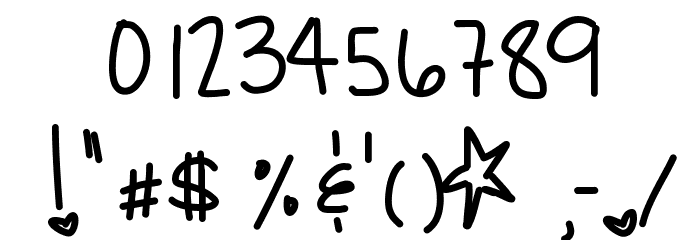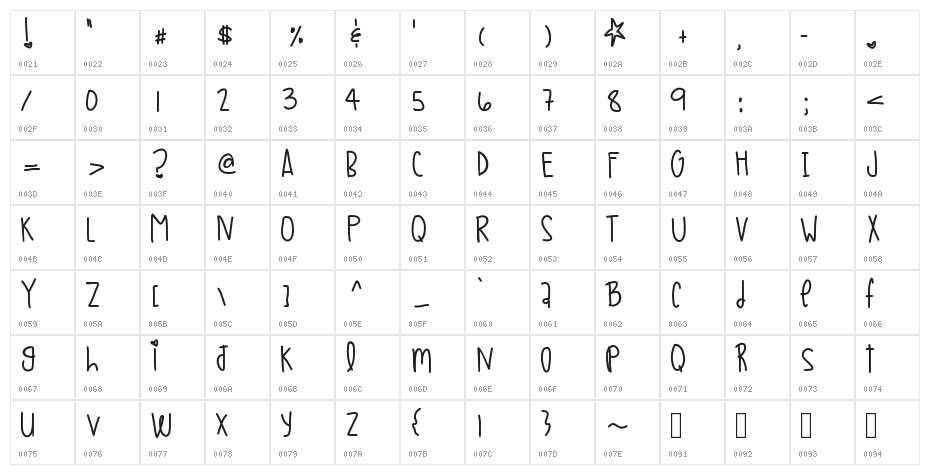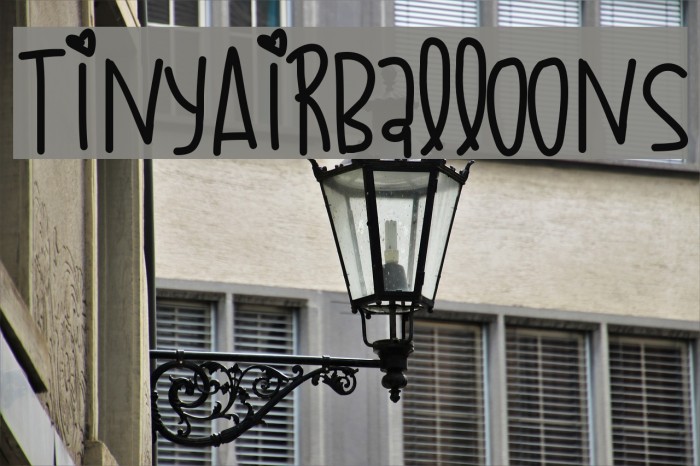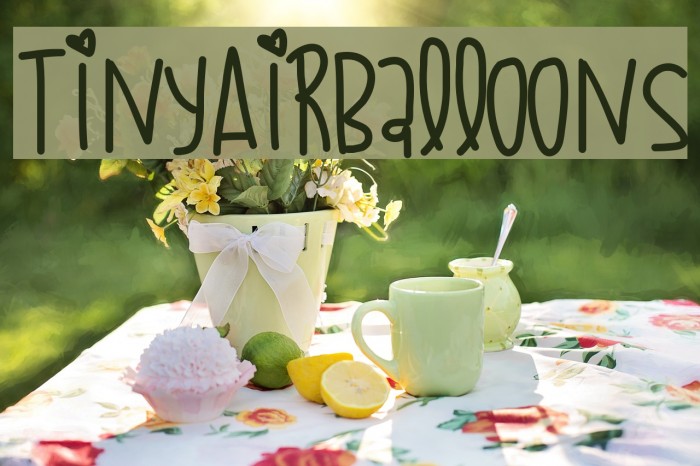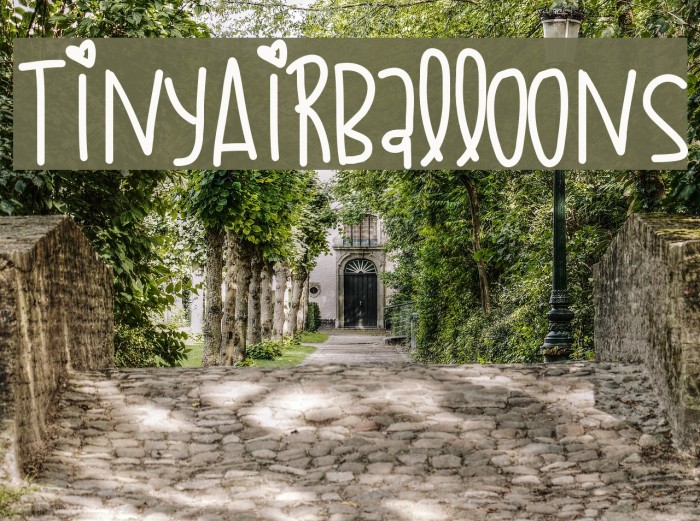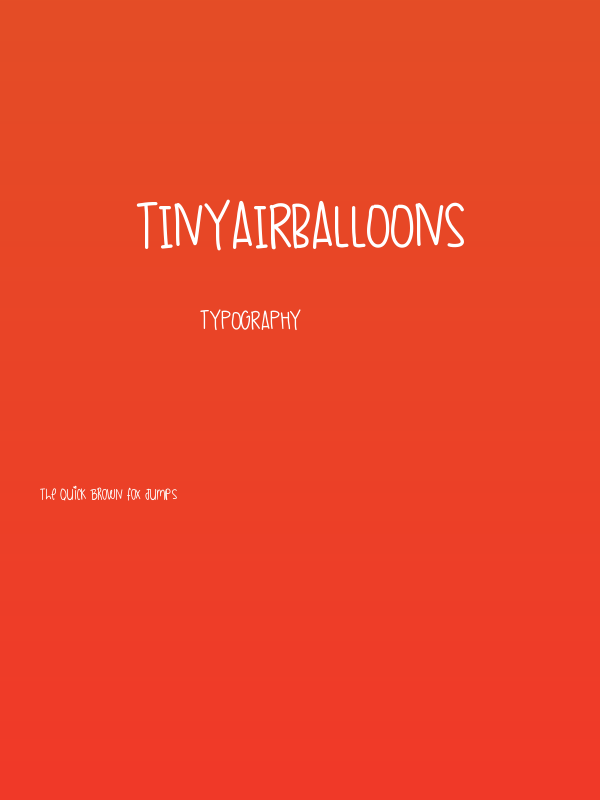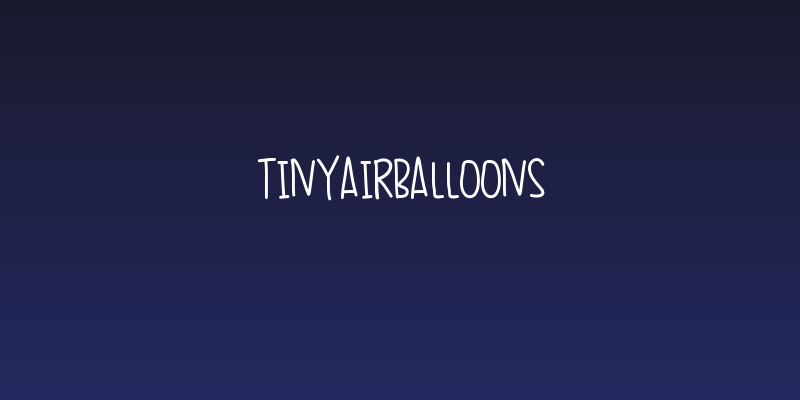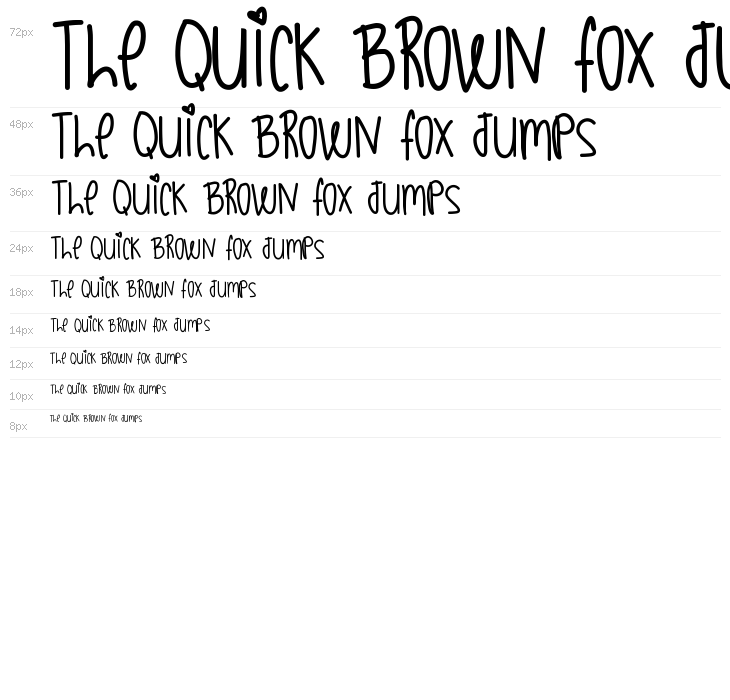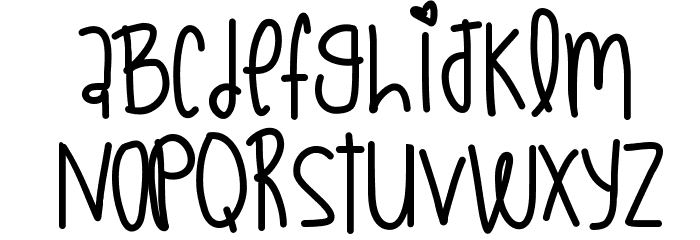
TinyAirBalloons Font
TinyAirBalloons Description
This playful and whimsical font features a handwritten style with a casual and friendly appearance. The letters are slightly uneven, giving it an authentic, hand-drawn feel. The uppercase and lowercase letters are distinct, with a charming irregularity that adds character. The numbers and special characters maintain the same playful aesthetic, making it versatile for various creative projects. The strokes are consistent in width, providing a cohesive look across all characters. This font is perfect for projects that require a personal touch or a fun, informal vibe.
Overall StylePlayful
Use CaseLogos, Headlines, Informal Text
Proposed ProjectsIdeal for greeting cards, children's books, playful branding, and social media graphics.